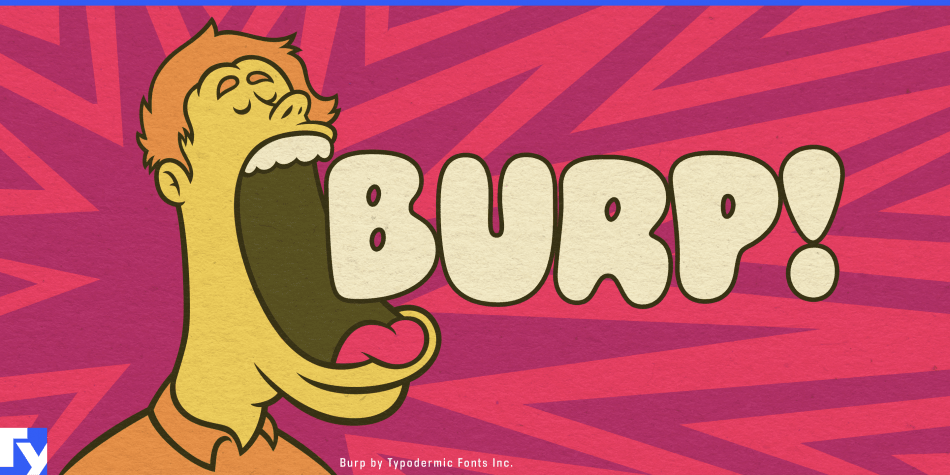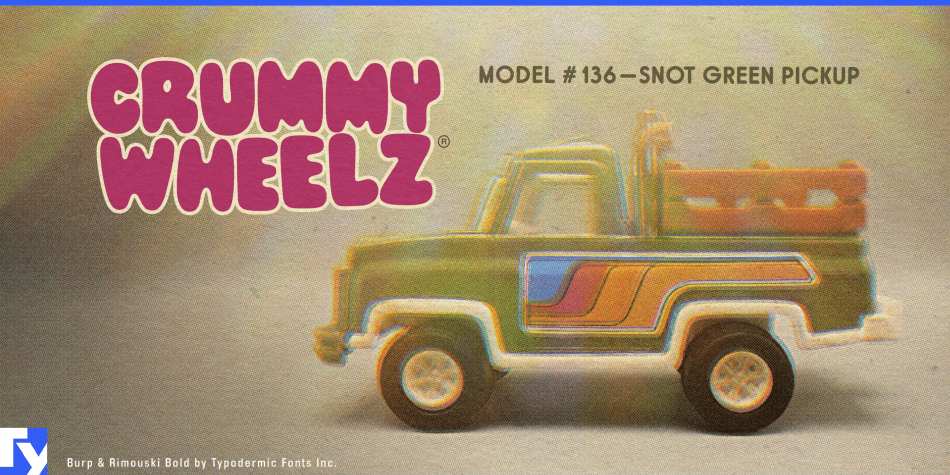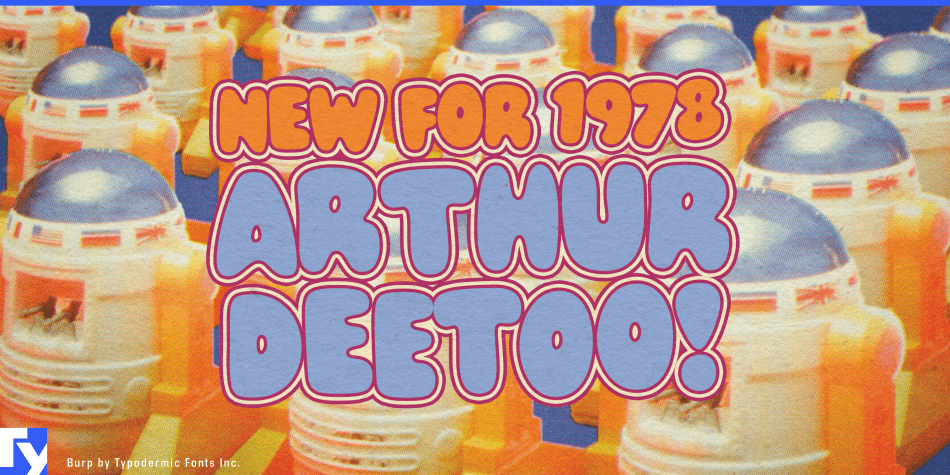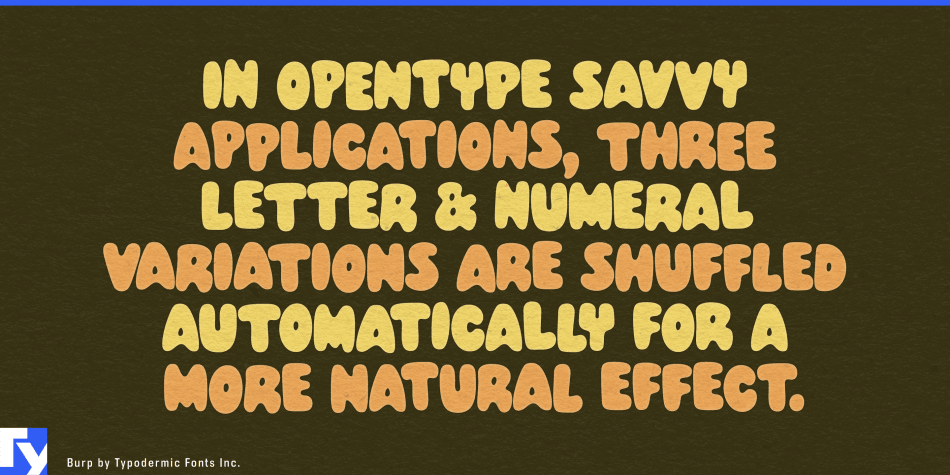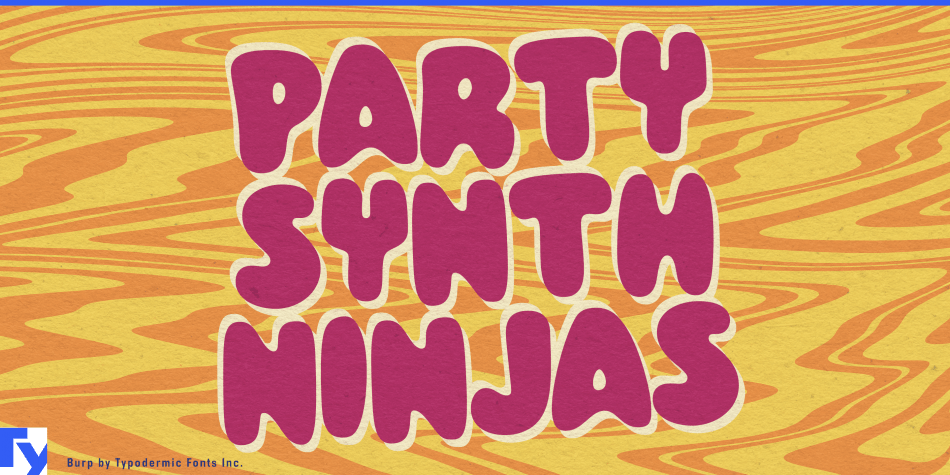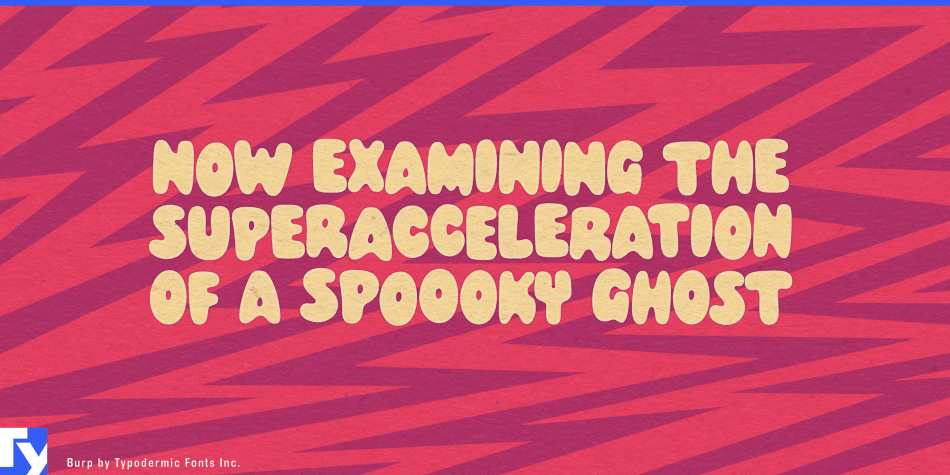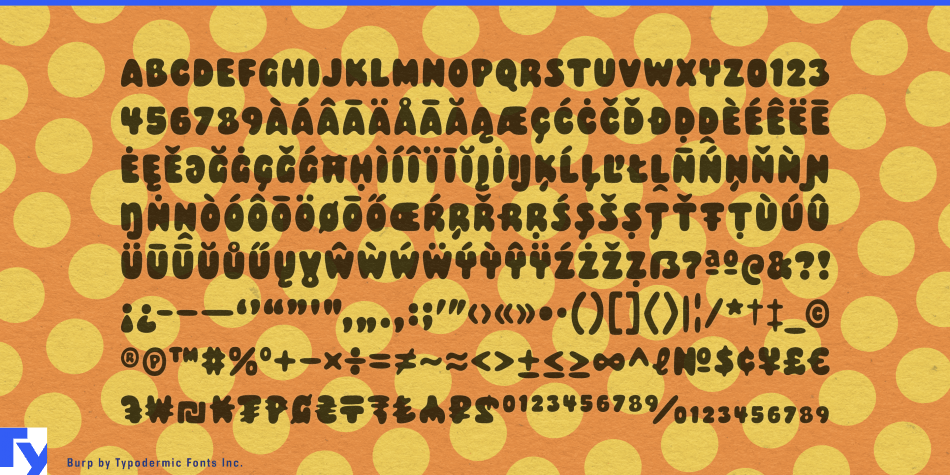
Burp
Font Family by Typodermic
Prepare to blast off into a world of typographic zaniness with Burp, the font that puts the “pow” in powerful design! This heavyweight champ of cartoon typography is here to transform your headlines from mundane to marvelous, with its tight-knit letters and pint-sized counters packing a visual punch that’ll leave your audience seeing stars.
But hold onto your hats, because Burp’s got more tricks up its sleeve than a magician’s convention! Thanks to its OpenType wizardry, this font shuffles through three variations of each letter and number faster than a Las Vegas dealer. The result? Text that looks like it leapt straight from the skilled hand of a caffeinated cartoonist, giving your words that authentic, hand-drawn pizzazz that’ll make your designs pop louder than a soap bubble convention.
Burp isn’t just a font—it’s your secret weapon in the battle against boring typography. Whether you’re jazzing up comic book covers, electrifying event posters, or adding some oomph to your social media memes, Burp’s got your back. And with support for a United Nations of Latin-based European writing systems, your wit and whimsy can travel from the fjords of Norway to the sun-soaked shores of the Mediterranean without missing a beat.
So, if you’re ready to give your designs a shot of adrenaline straight to the funny bone, it’s time to let Burp do the talking. Just flip the switch on your app’s contextual alternates or standard ligatures, and watch as your words transform into a carnival of cartoonish delight. With Burp, every headline’s a headliner, every sentence a spectacle, and every project a party waiting to happen. Don’t let your typography be a wet blanket—let Burp bring the boom, the bang, and the belly laughs to your next design adventure!